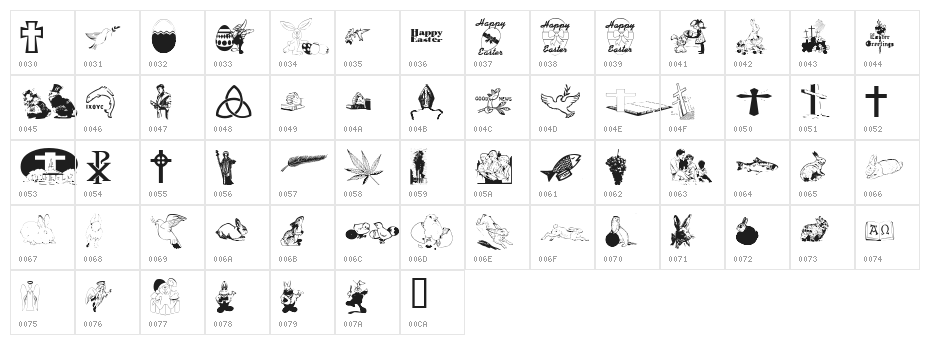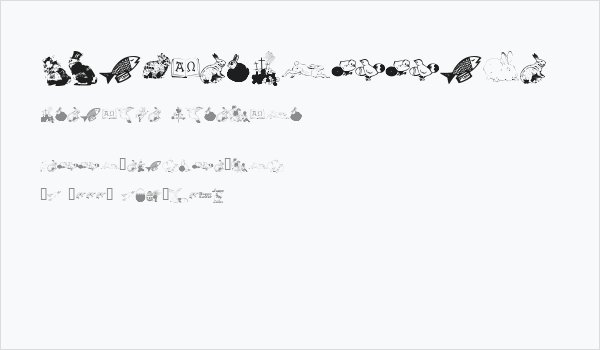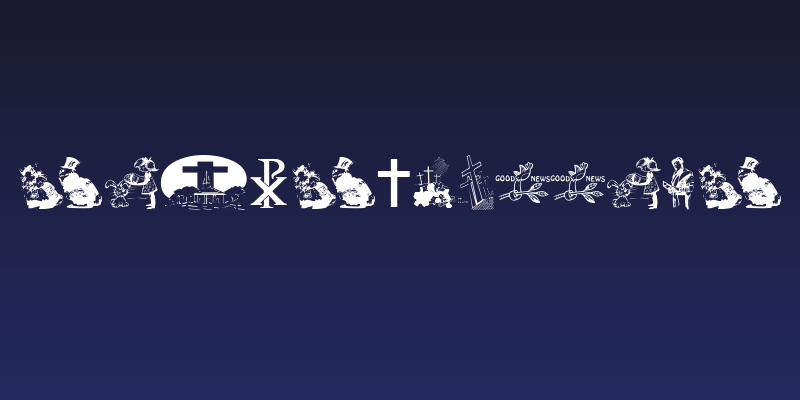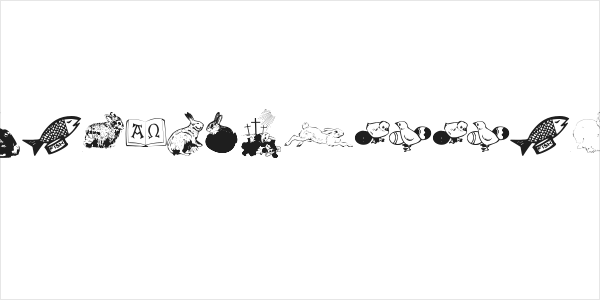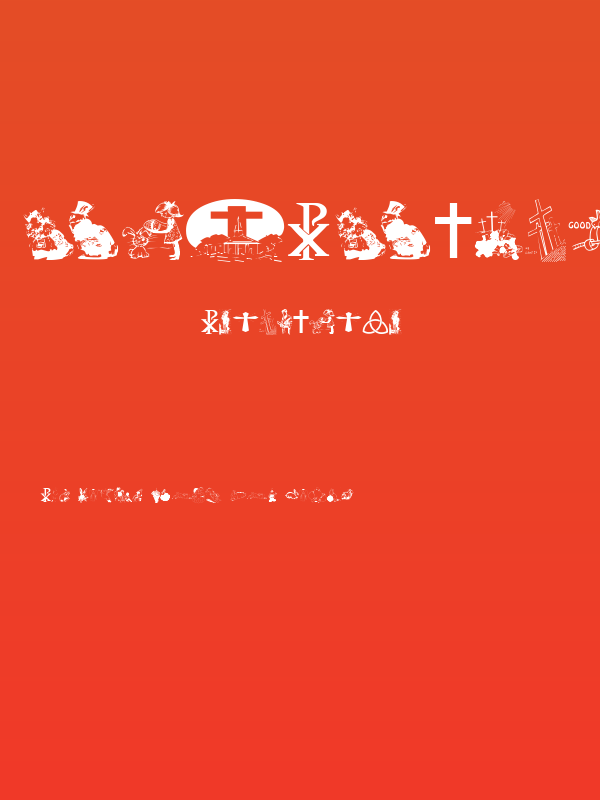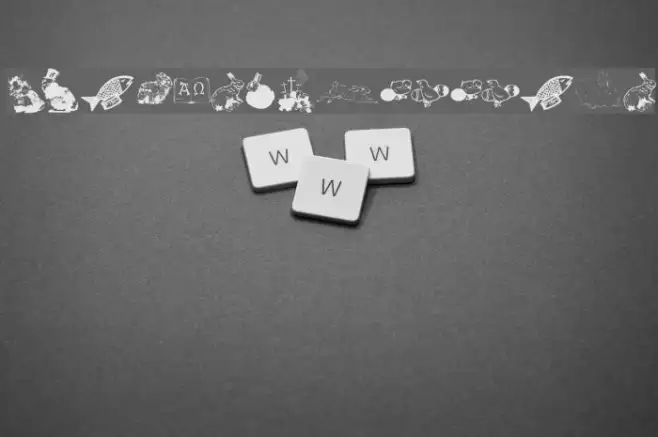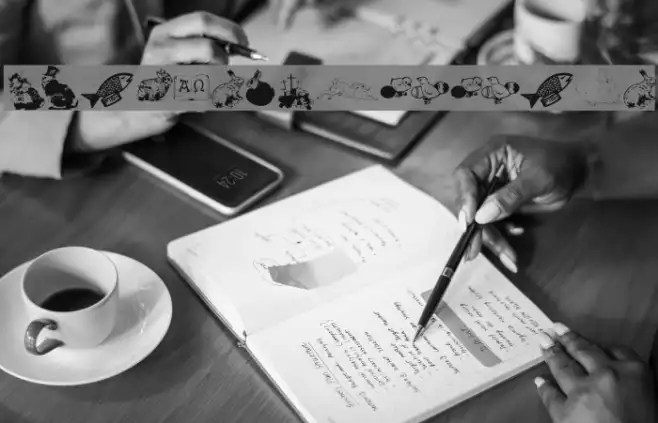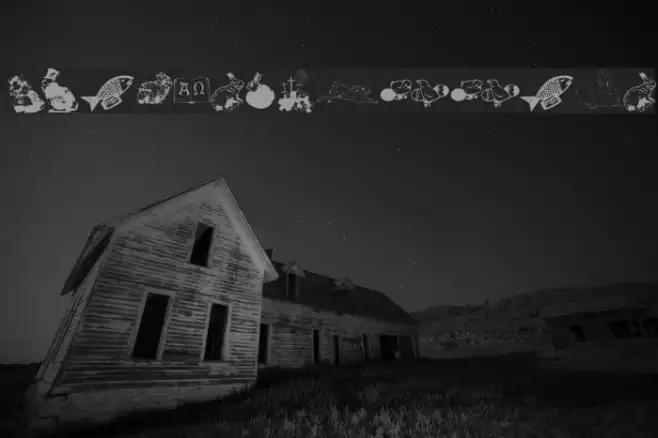
EasterCollage Font
EasterCollage Description
A decorative display font featuring a collage of Easter-themed illustrations, including crosses, bunnies, eggs, religious symbols, and festive greetings. The characters are represented by detailed black-and-white drawings rather than traditional letterforms, making it highly illustrative and thematic.
| Overall Style | Decorative, Festive, Thematic |
| Use Case | Headlines, Logos, Themed graphics, Decorative text |
| Proposed Projects | Holiday cards, event flyers, party invitations, seasonal posters, craft projects, educational materials. |